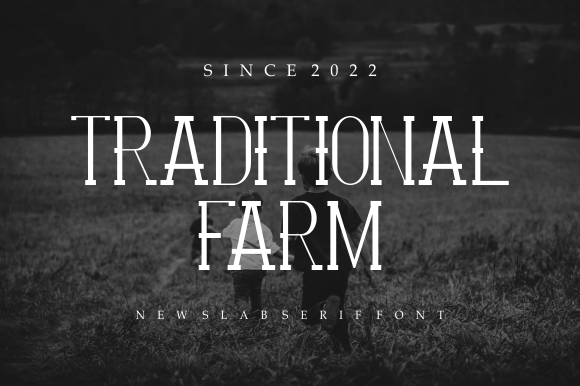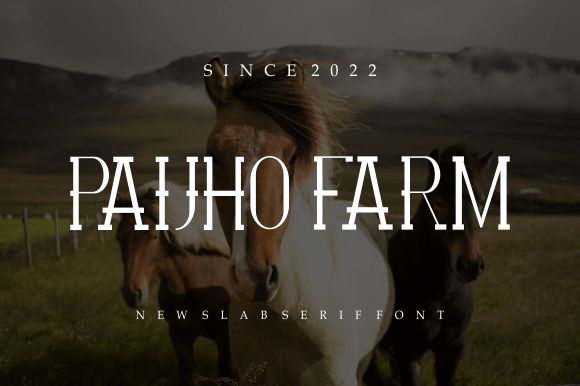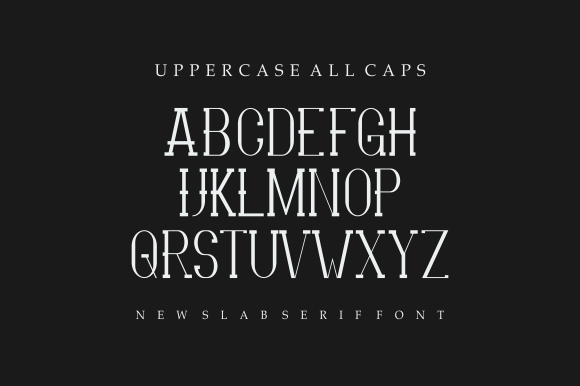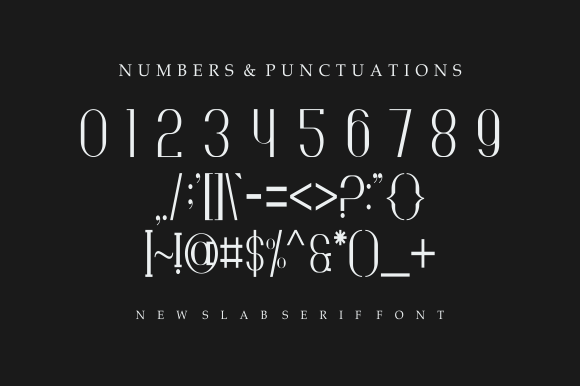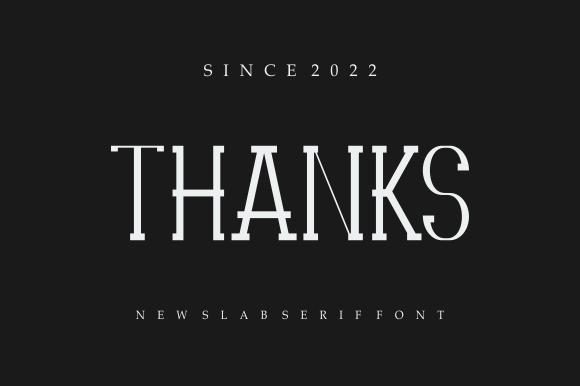
Hiaklimah Font
HIAKLIMAH FONT SPECIMEN
Hiaklimah is a wonderful thin slab serif typeface. Its unique glyphs construction renders it a valid choice when it comes to designing a serious project which requires a delicate touch, clean look, and elegant note. Use it in your Packaging design, perfume design, or fashion design presentation, and you will notice how much powerful it ports inside every glyph.